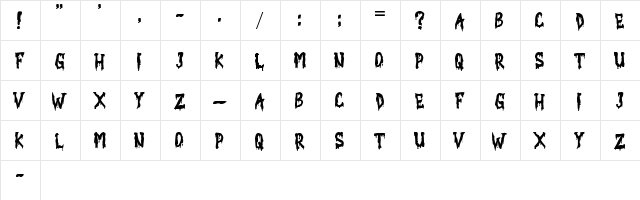
DHEMIT Regular
| Designer | Sembodo Studio |
Design Context for DHEMIT Typeface
DHEMIT is a composed and adaptable typeface that performs quietly and consistently across a wide range of design contexts.